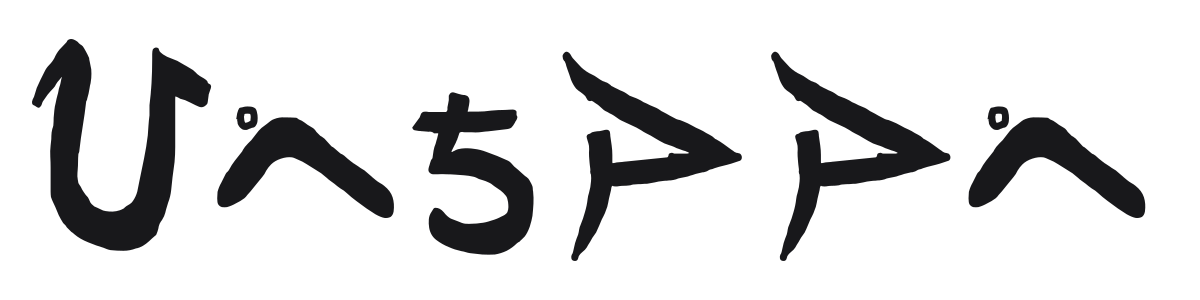
Unseen
Unseen is a display font built around the concept of an invented alien or cipher-like script, where every character reads as unfamiliar and intentionally unrecognizable. The hand-drawn strokes vary organically in thickness and direction, giving the font a raw, slightly eerie texture. It works for titles, posters, and any project that needs to signal mystery, the unknown, or a constructed world.